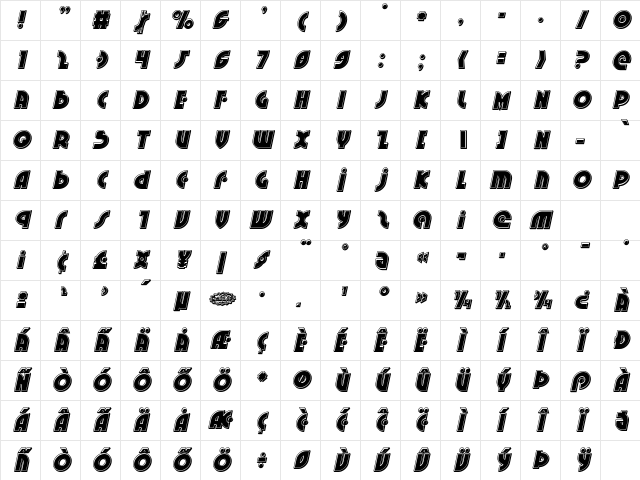
Complete Neuralnomicon Bevel Italic Italic glyph index. Displaying only characters natively supported by Neuralnomicon Bevel Italic Italic font.
Neuralnomicon Bevel Italic is a composed and adaptable typeface that performs quietly and consistently across a wide range of design contexts. The slanted form adds forward momentum and visual energy.